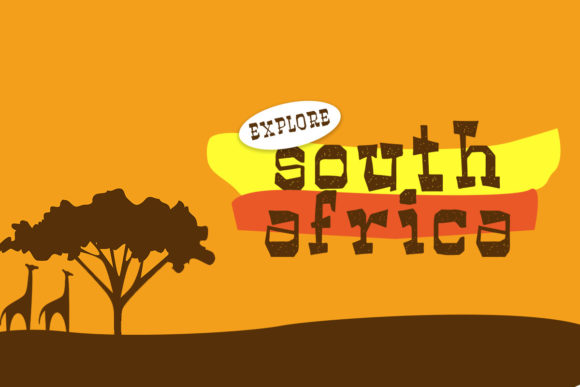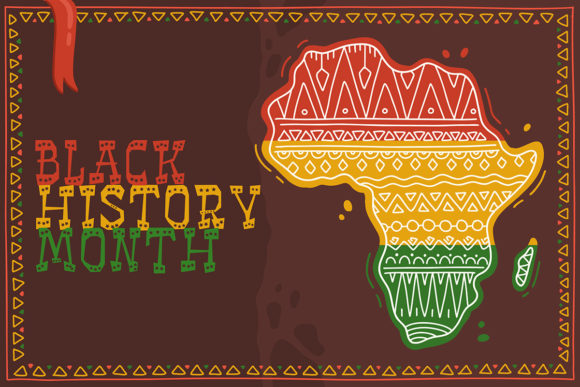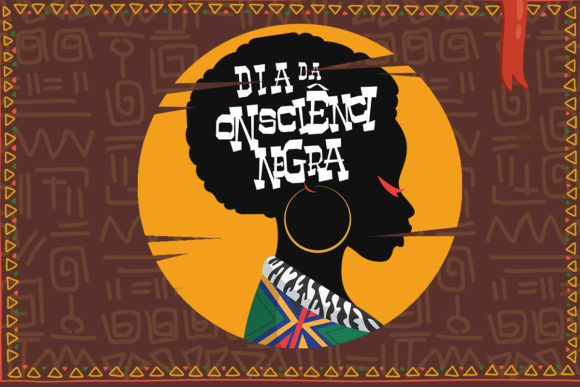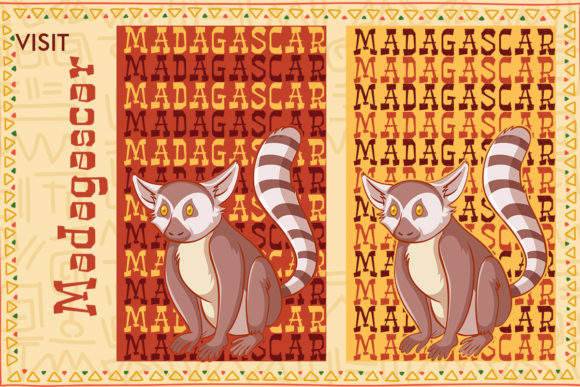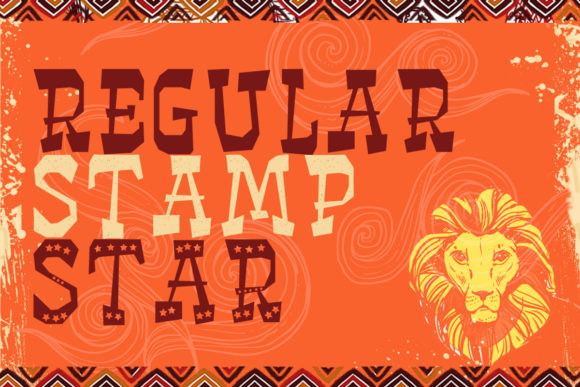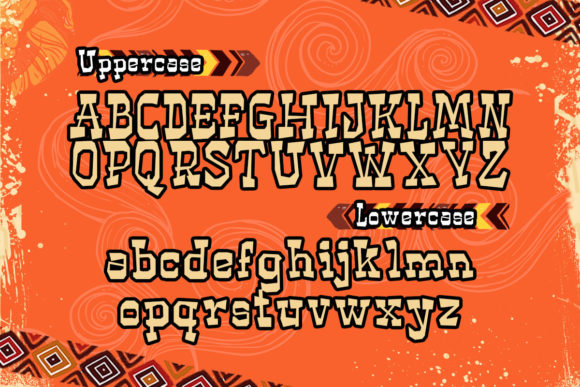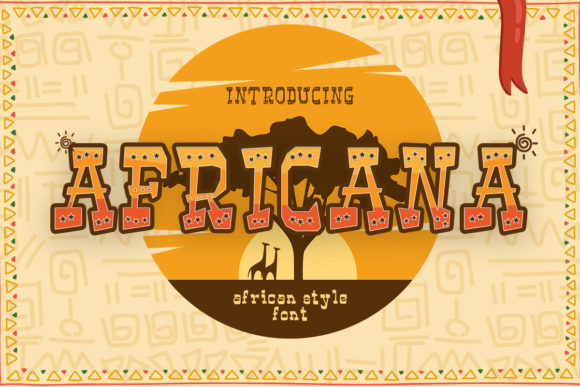
Introducing Africana Font: The Ultimate Display Font for Unique Designs
Are you tired of using the same old fonts for your designs? Look no further! Africana Font is here to revolutionize your creative projects with its cool, fun, and authentic display font style. This font is perfect for designers and crafters who want to add a unique, cool, and colorful vibe to their work.
What Makes Africana Font Special?
Africana Font is a one-of-a-kind display font that is designed to make your designs stand out from the crowd. Its unique and authentic style is inspired by the vibrant cultures of Africa, making it perfect for projects that require a bold and colorful touch. Whether you’re working on a branding project, a poster, or a social media graphic, Africana Font is sure to add a fun and playful twist to your design.
Key Features of Africana Font
- Unique and Authentic Style: Africana Font boasts a distinctive and genuine style that sets it apart from other fonts.
- Cool and Fun: This font is designed to add a playful and cool vibe to your designs, making it perfect for projects that require a youthful and energetic feel.
- Colorful and Vibrant: Africana Font is inspired by the vibrant colors of Africa, making it perfect for designs that require a bold and colorful touch.
- High-Quality Design: This font is carefully crafted to ensure that it looks great in any design, from print to digital.
Use Cases for Africana Font
Africana Font is a versatile display font that can be used in a variety of design projects, including:
- Branding and Logo Design: Use Africana Font to create a unique and memorable brand identity that stands out from the competition.
- Posters and Flyers: Add a fun and playful touch to your posters and flyers with Africana Font.
- Social Media Graphics: Use Africana Font to create eye-catching social media graphics that grab attention.
- Packaging Design: Add a cool and colorful touch to your packaging design with Africana Font.
Tips for Using Africana Font
Here are some tips for getting the most out of Africana Font:
- Use it as a Display Font: Africana Font is designed to be used as a display font, so use it to add a bold and eye-catching touch to your designs.
- Experiment with Colors: Africana Font is inspired by the vibrant colors of Africa, so don’t be afraid to experiment with different colors to find the perfect combination for your design.
- Pair it with Other Fonts: Try pairing Africana Font with other fonts to create a unique and interesting contrast.
Africana Font is a unique and authentic display font that is perfect for designers and crafters who want to add a cool, fun, and colorful vibe to their designs. With its high-quality design and versatile use cases, Africana Font is sure to become a go-to font in your design arsenal. So why wait? Download Africana Font today and start creating unique and eye-catching designs that stand out from the crowd!